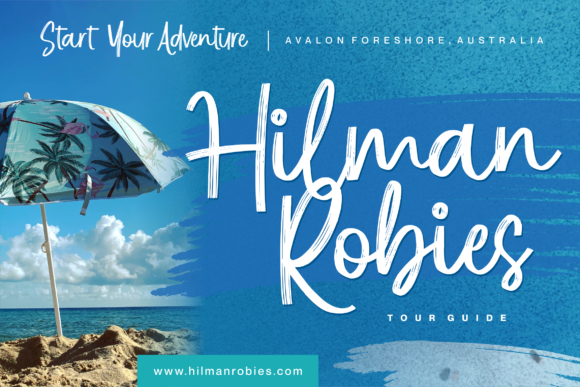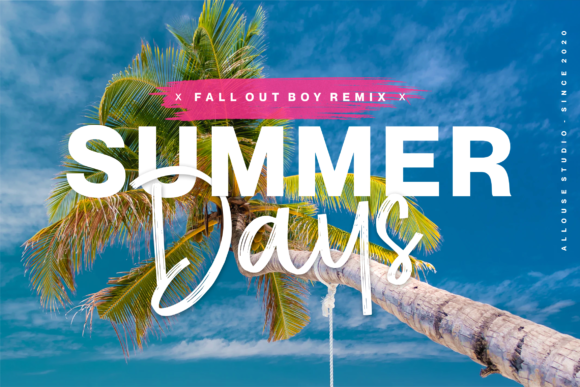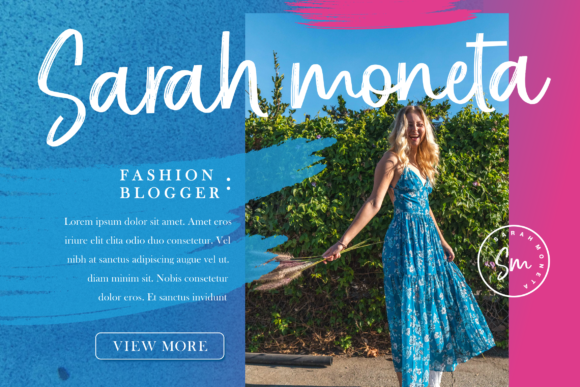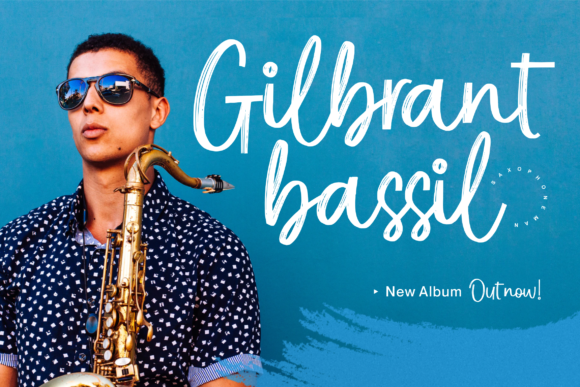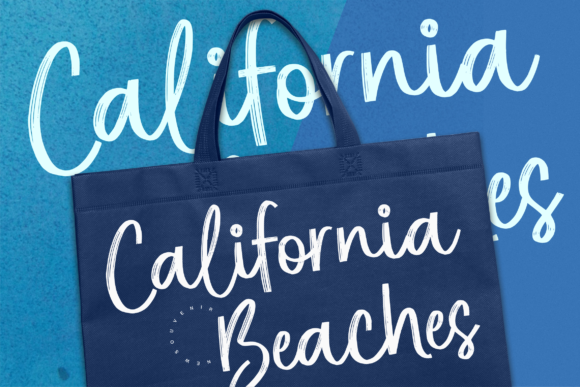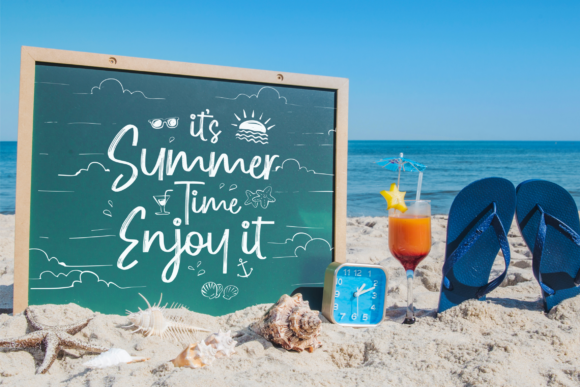
The Blue Season Font: A Refreshing Addition to Your Design Arsenal
Have you ever been in the middle of a design project, and suddenly, you’re stuck on finding the perfect font? I recall a particularly frustrating experience while working on a branding project for a wellness company. My client wanted a font that exuded calmness, serenity, and a touch of elegance. After scouring through countless font libraries, I stumbled upon the Blue Season font. It was love at first sight! In this article, we’ll dive into the world of Blue Season, exploring its features, uses, and some clever tips and tricks to make the most of this beautiful script font.
A Personal Review: What I Love About Blue Season
Here’s what makes Blue Season a standout font:
- ✨ Adaptability: Blue Season effortlessly adapts to various design contexts, from elegant branding to playful crafts.
- ✅ Legibility: The font’s relaxed script style ensures excellent readability, even at smaller font sizes.
- 💫 Elegance: Blue Season adds a touch of sophistication to any design, making it perfect for high-end branding and luxury projects.
While Blue Season is an exceptional font, there are a few minor quirks to be aware of:
- ⚠️ Limited use in body text: Due to its script nature, Blue Season might not be the best choice for lengthy body text. It’s better suited for headings, titles, and short paragraphs.
- 🤔 Kerning adjustments: As with any script font, you might need to make manual kerning adjustments to achieve optimal spacing and aesthetics.
The Story Behind Blue Season
Blue Season was crafted with the intention of creating a font that embodies the essence of serenity and elegance. The designer aimed to create a font that would evoke feelings of calmness and sophistication, making it perfect for designs that require a touch of refinement. The result is a beautiful, adaptable script font that has captured the hearts of designers and crafters alike.
| What is Blue Season font best used for? | Blue Season is ideal for designs that require elegance, sophistication, and a touch of calmness, such as branding, logos, and titles. |
| Is Blue Season suitable for body text? | While Blue Season is legible, it’s better suited for short paragraphs and headings. For lengthy body text, consider using a more traditional serif or sans-serif font. |
| Does Blue Season support OpenType features? | Yes, Blue Season supports OpenType features, including stylistic alternates, ligatures, and glyphs, allowing for advanced typographic control. |